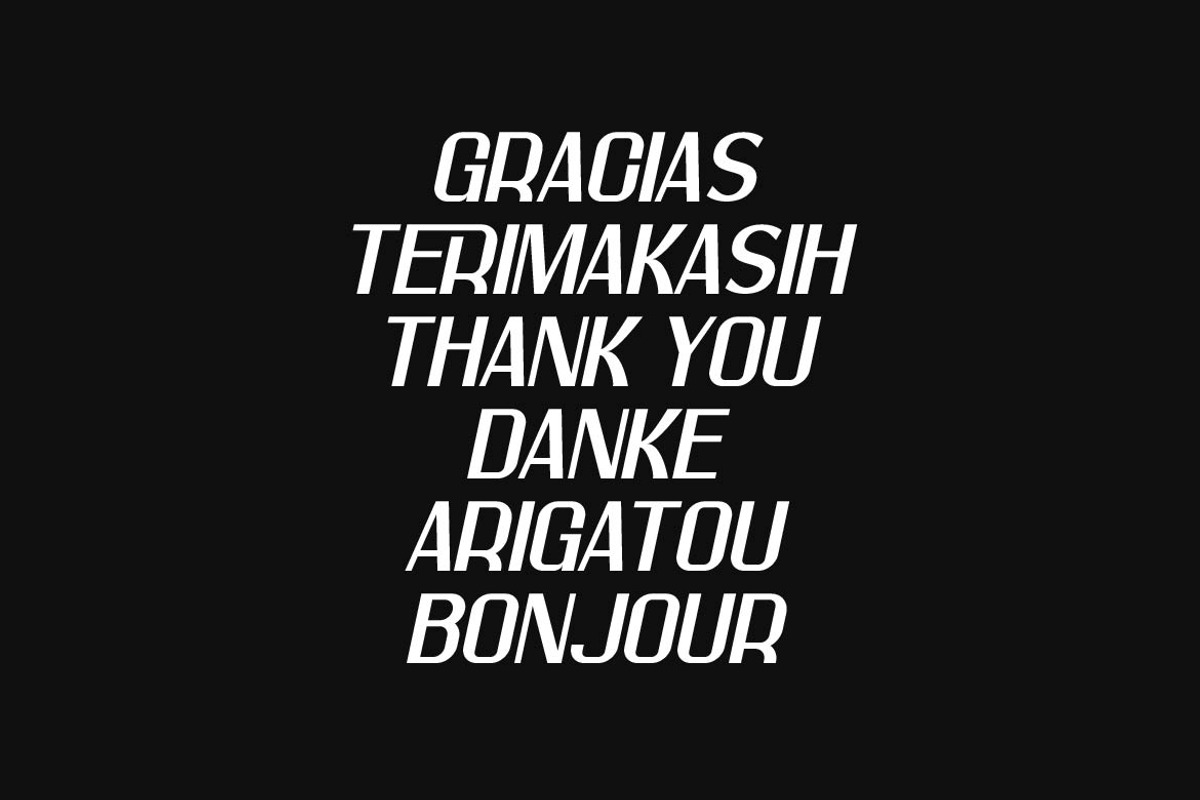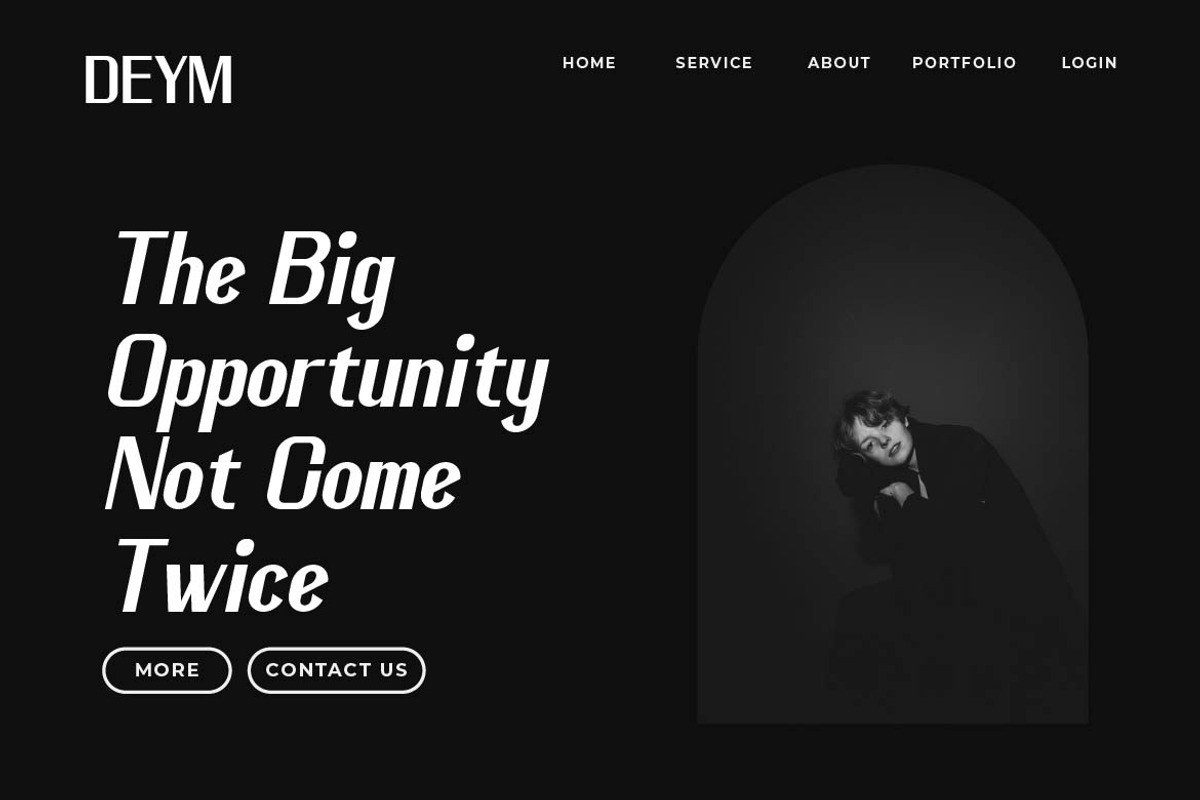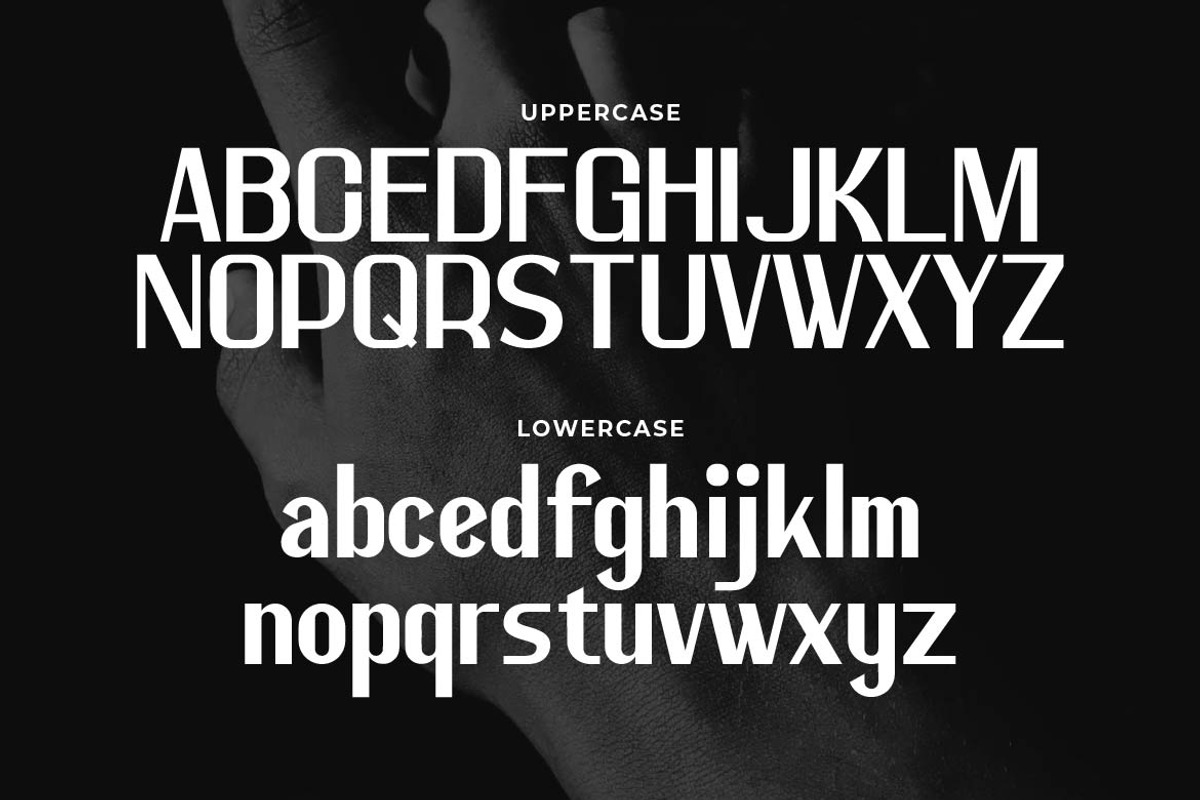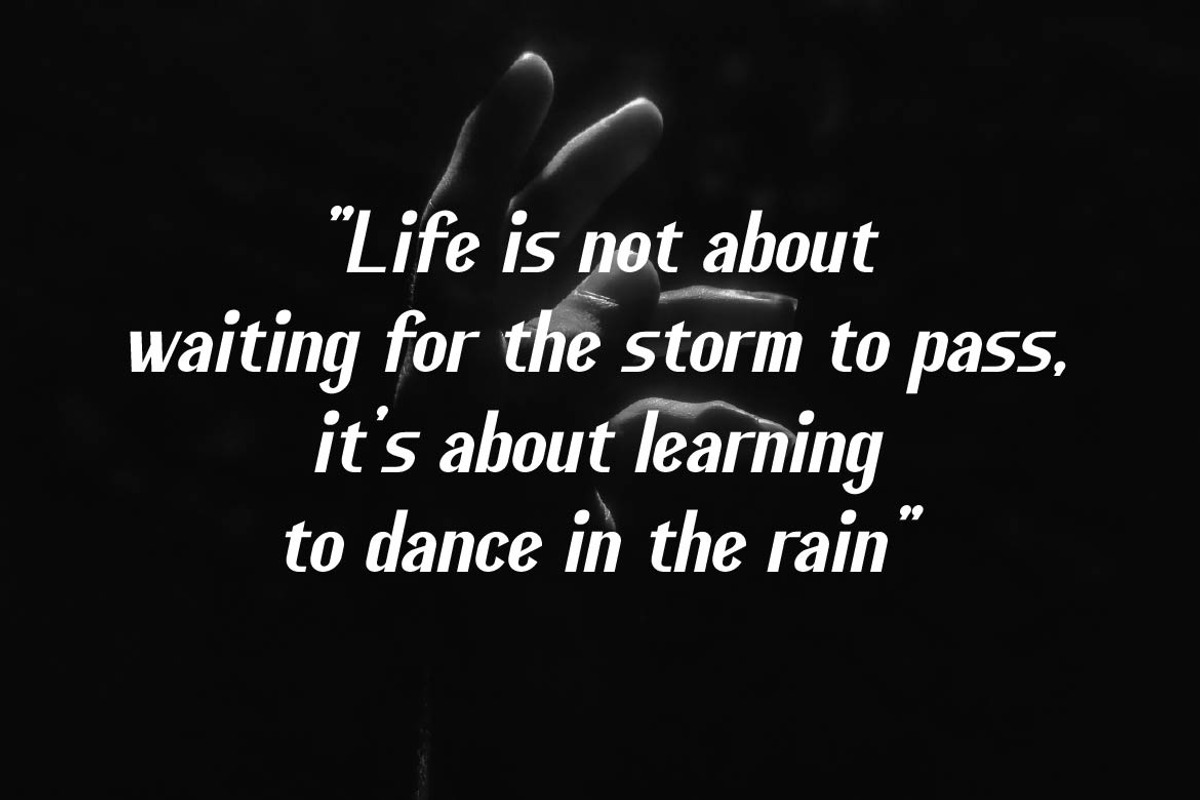
Cemmani Pro – Modern Bold Sans Serif
Cemmani Pro is a strong and confident modern sans serif typeface built for impactful design. With bold structure, clean geometry, and smooth curves, Cemmani Pro delivers high readability with a powerful visual presence. Every letterform is crafted to look sharp, professional, and contemporary — perfect for logos, branding, posters, headlines, magazines, social media, and digital products.